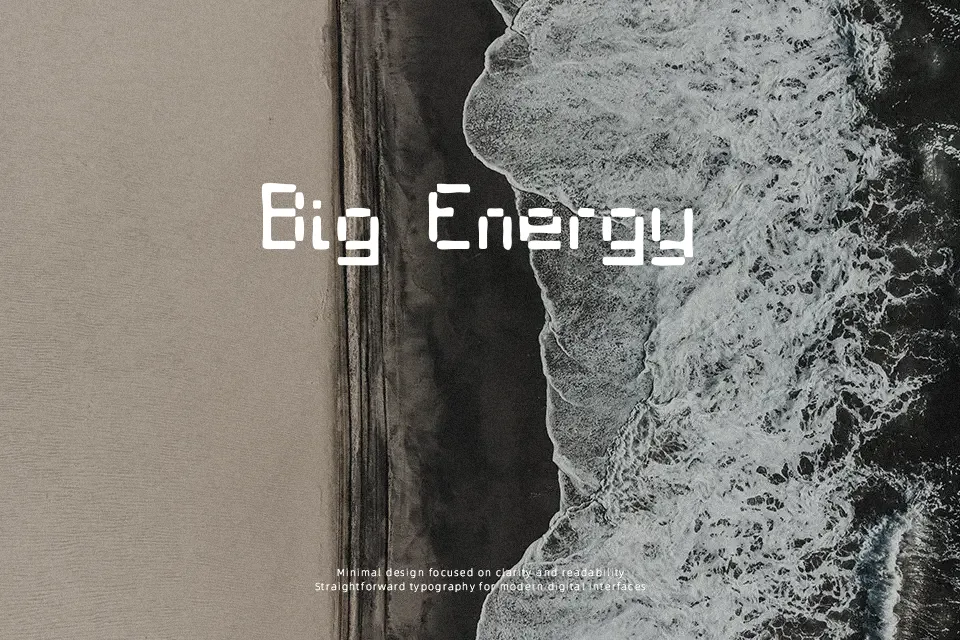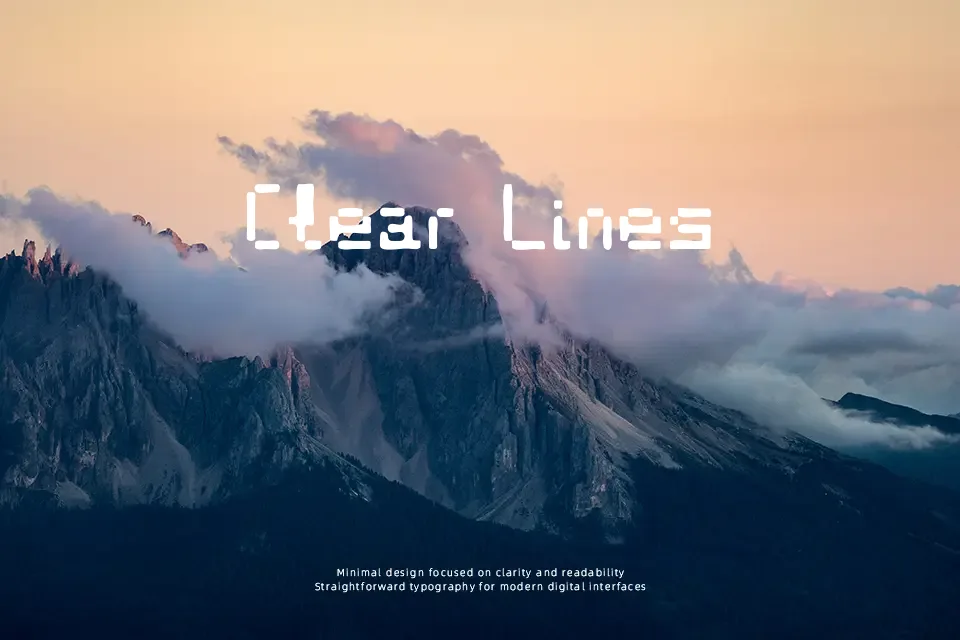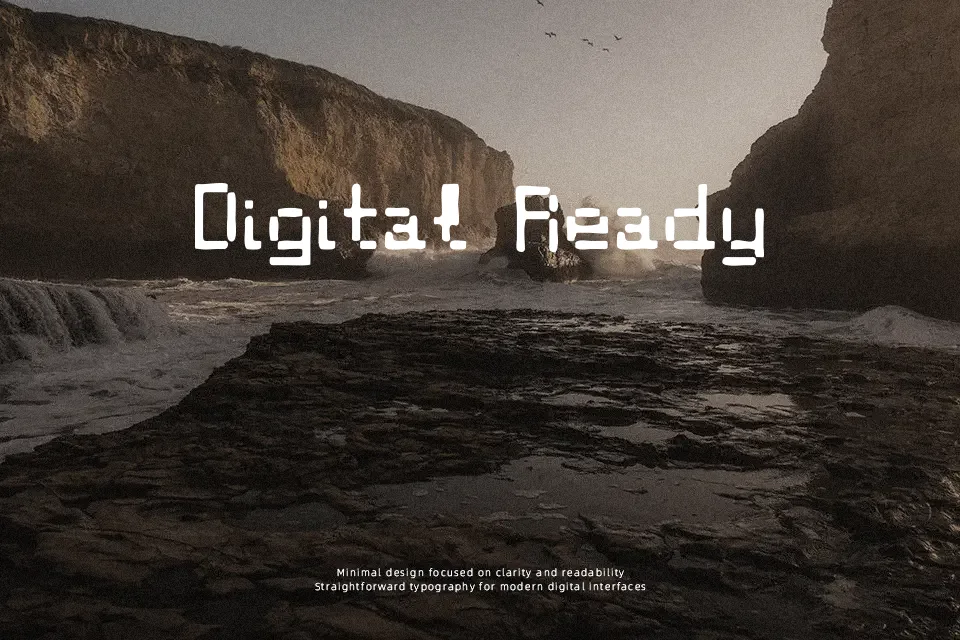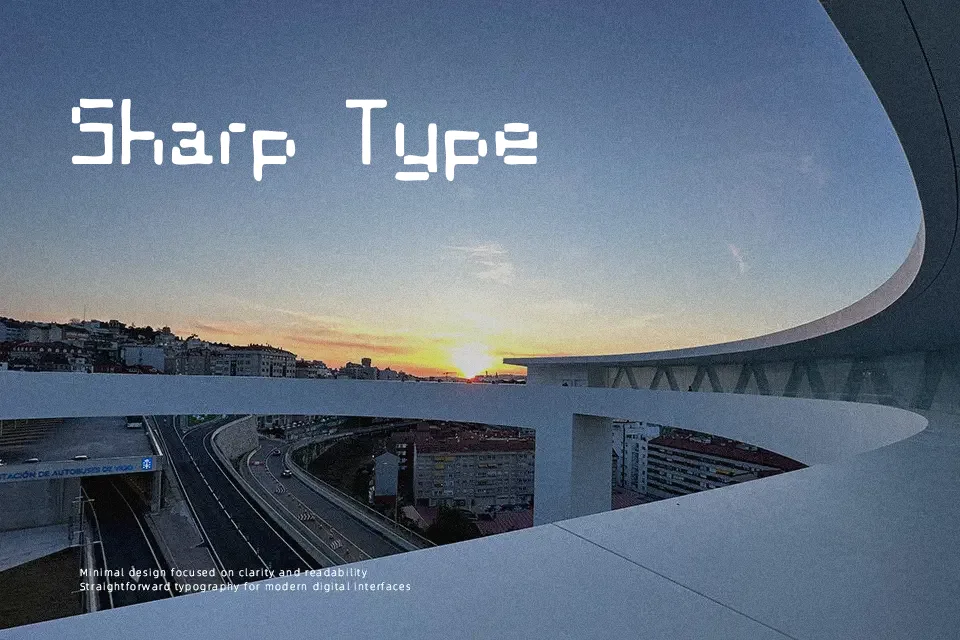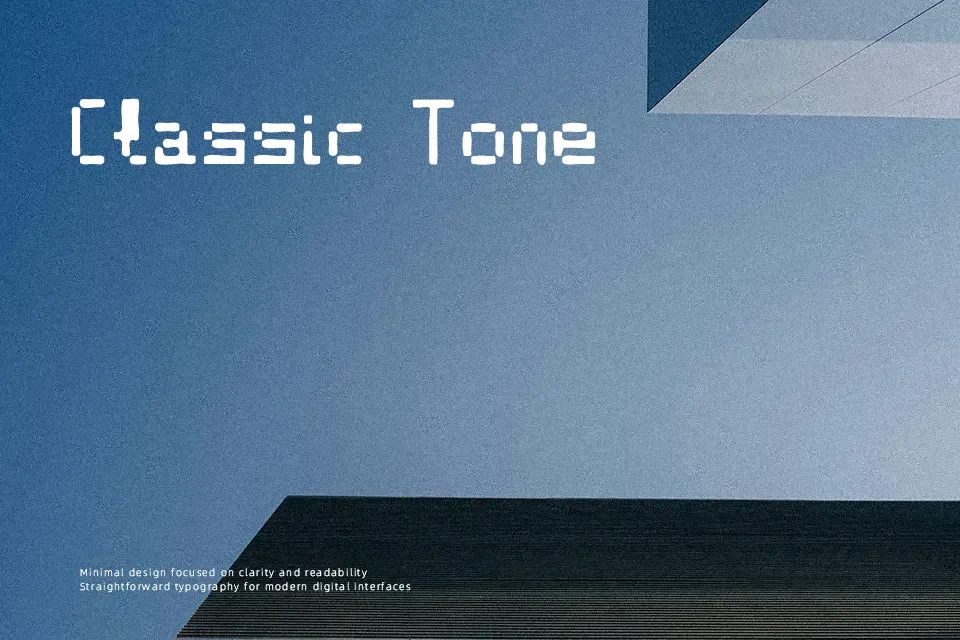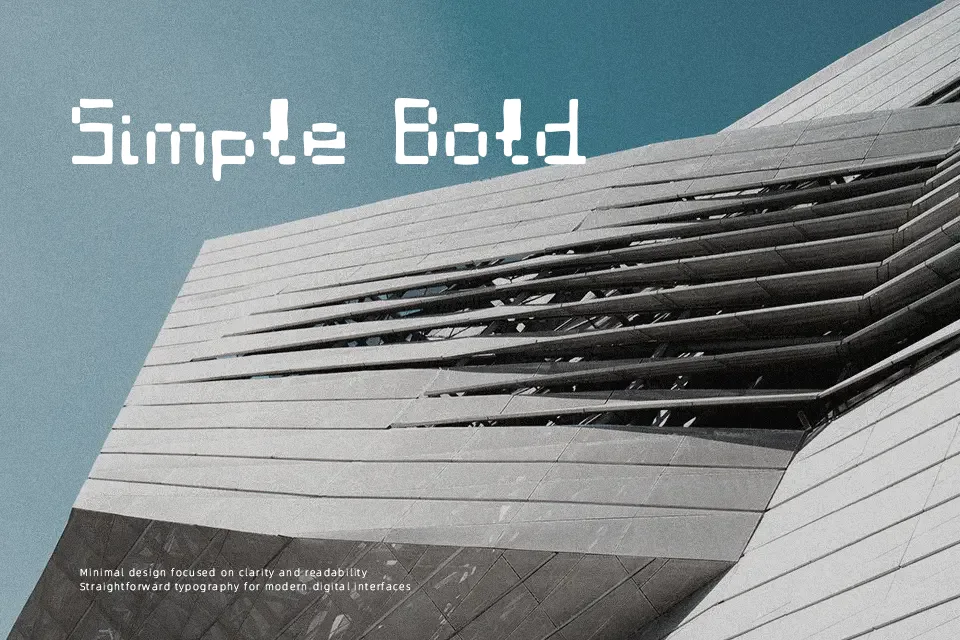
Stencil 8bit Font
Stencil 8bit Font combines modular pixel grids with segmented stencil bridges to create an energetic, tech-driven display typeface. Each glyph features heavy, uniform stroke widths assembled from square blocks, punctuated by sharp horizontal and vertical gaps. The spacing remains relatively compact, maintaining a structured rhythm across short titles while preserving character silhouettes. Large and medium sizes showcase its distinct digital texture, making the letterforms highly effective for arcade graphics, apparel prints, and bold poster headers. However, the fragmented counters and rigid geometry diminish legibility when set as continuous reading material or small UI labels. The deliberate geometric breaks provide immediate retro appeal across screen-focused titles.
Best For: retro video game titles, arcade event posters, esports apparel graphics, pixel art packaging
Not Ideal For: continuous body paragraphs, small user interface captions, dense editorial articles, corporate financial documents
Perfect for gaming, headline, and logo, with a bold and display style.